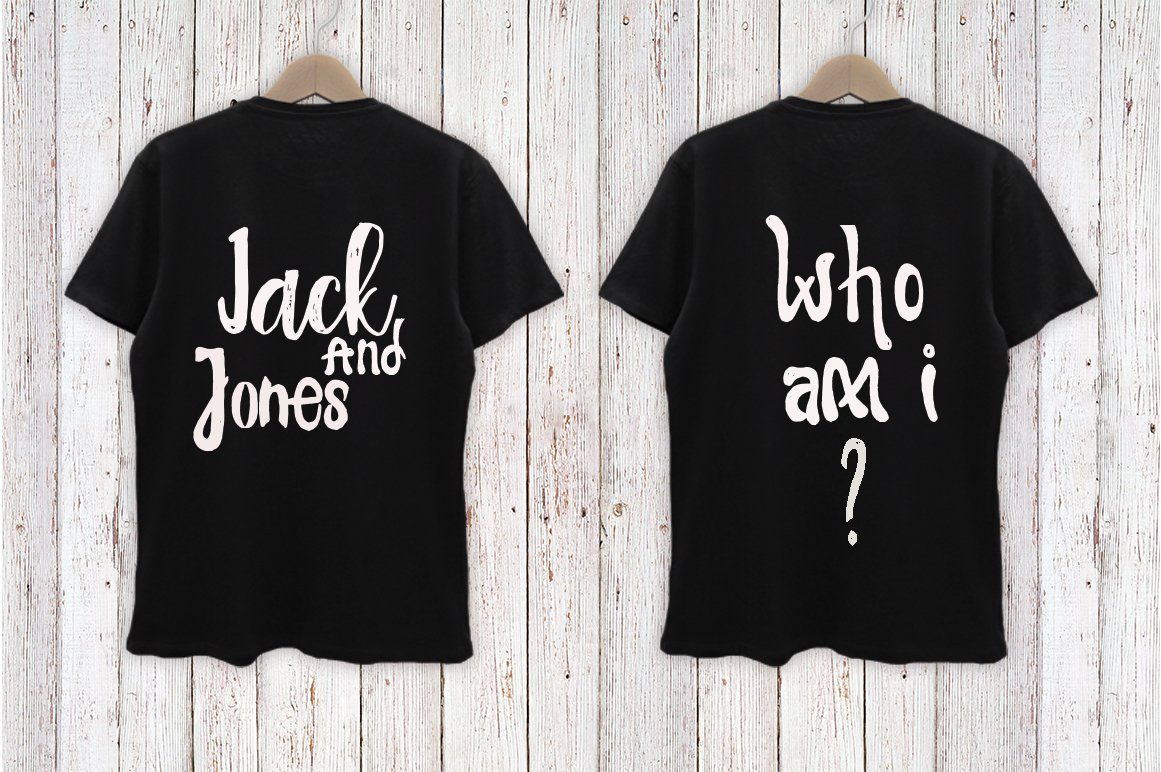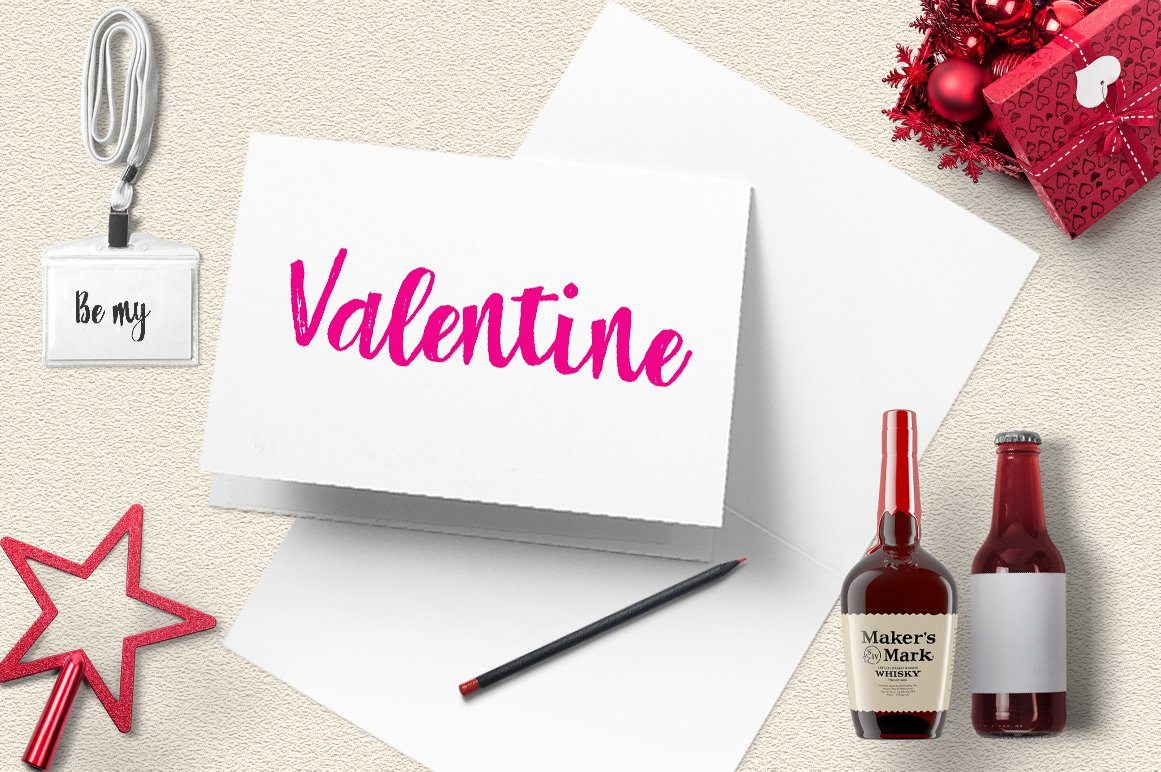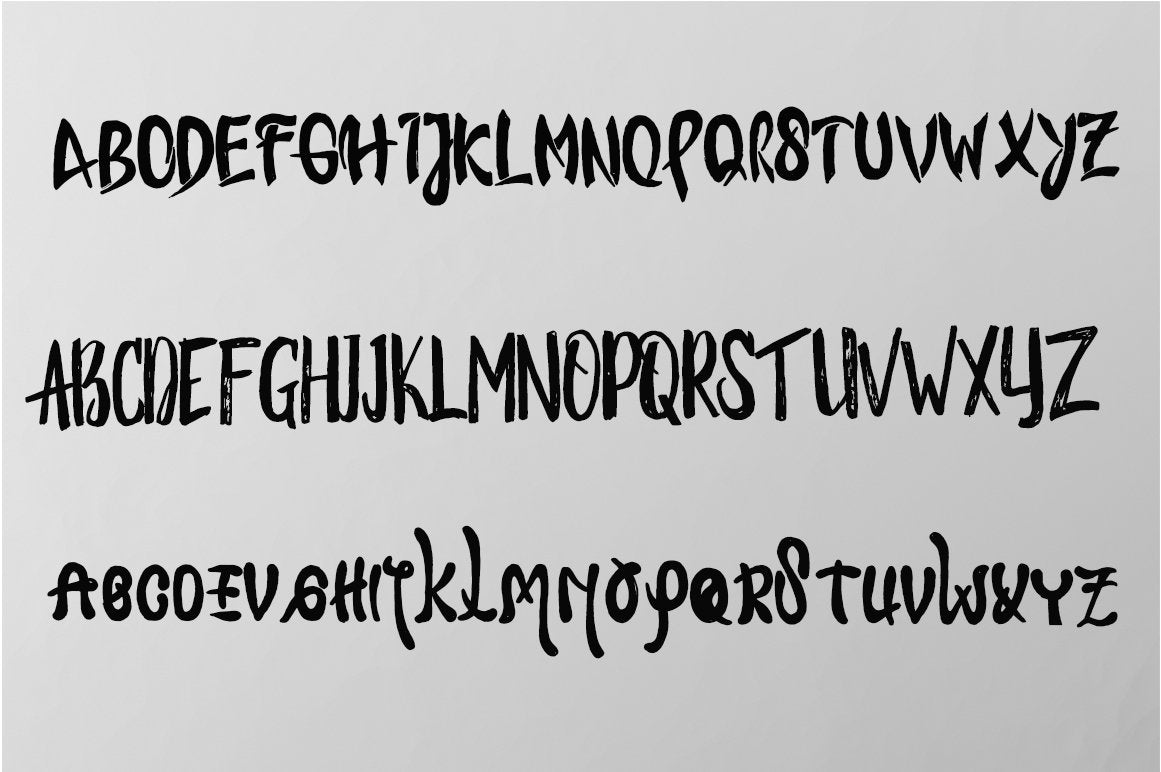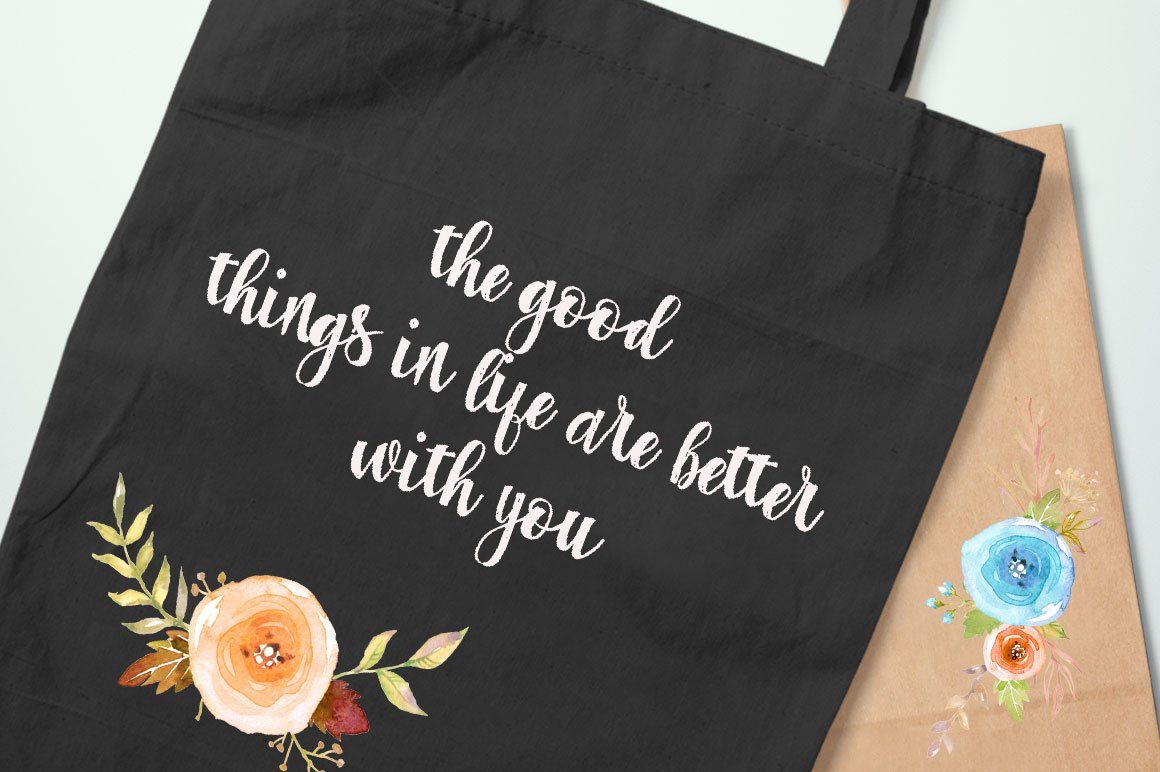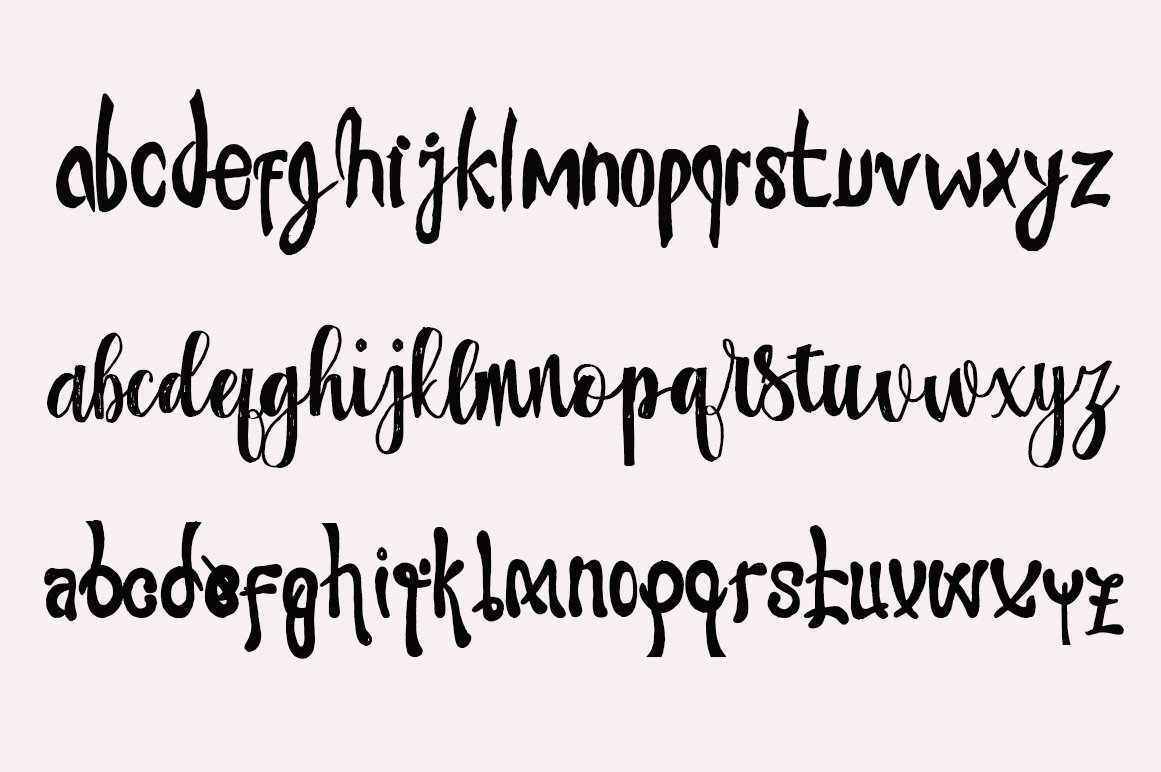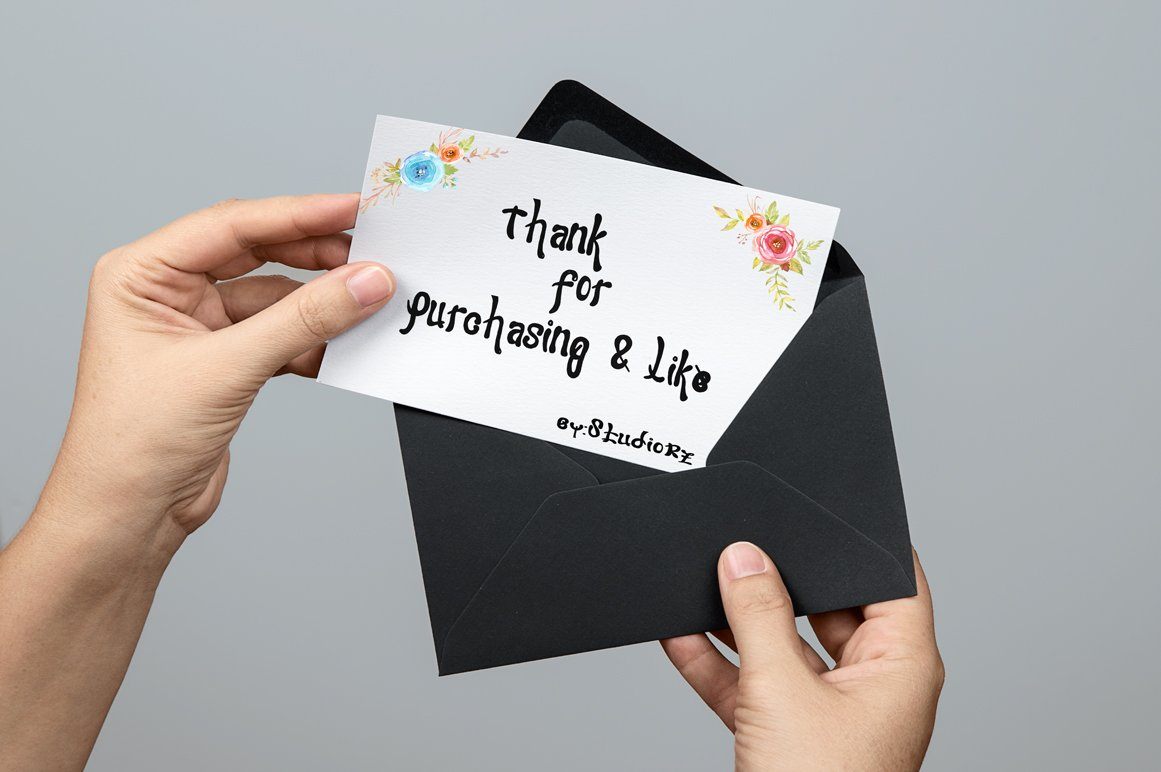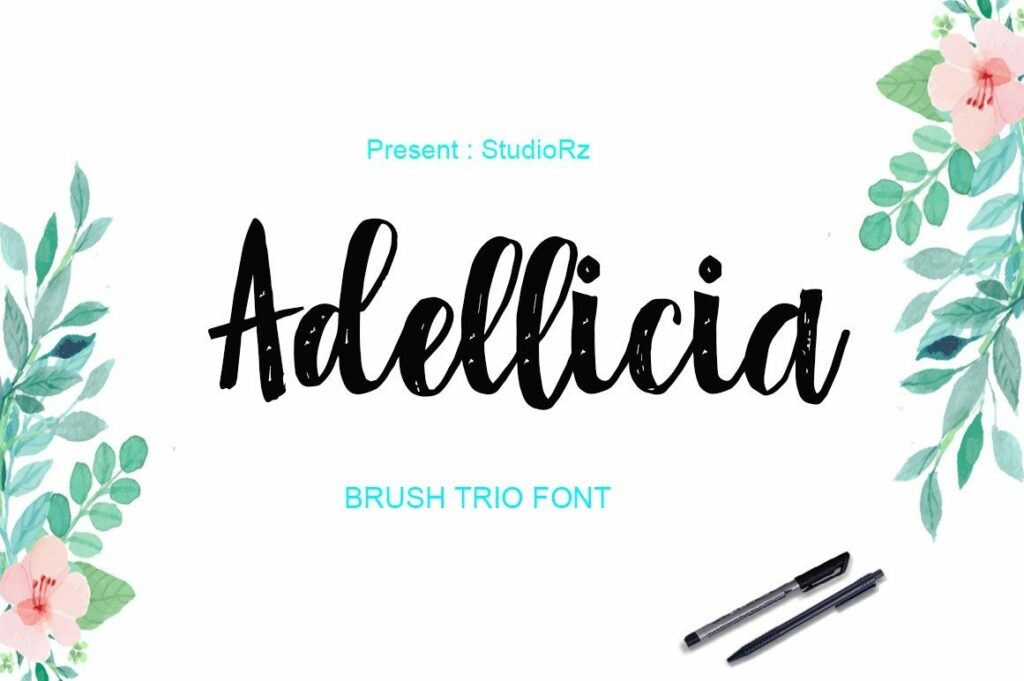
Adellicia Trio Font Script
Adellicia Trio Font Script is Handdrawn font, fantastic and unique. The Features of this fonts; Standart ligatures stylistic sets File font Trio Include ; Adellicia. OTF Adellicia. TTF Ladis. OTF Ladis. TTF Lover. OTF Lover. TTF , Modern Calligraphy. This font was designed by handwriting, and it has a modern and unique forms of calligraphy, the writing style is very natural. Can be used for various purposes. Such as title, signature, logo, wedding invitation, t-shirt, letterhead, nameplate, label, news, poster, badge etc. Adellicia Trio Font Script displays 619+ glyphs and 27 alternate characters. Includes initial letters and terminals, alternatives, ligatures and multiple language support. The Features of this fonts is; Standart ligatures Stylistic Alternates Contextual Alternates File font Denmahis Include; Adellicia Trio Font OTF Adellicia Trio Font TTF Adellicia Trio Fontfont Web Adellicia Trio Font PUA Unicode (Private Use Areas) Programs that support in this font is a Photo Shop, Adobe Illustrator, Adobe Indesign, Corel Draw and Microsoft Office. Can be used for various purposes.such as headings, logos, wedding invitation, t-shirt, letterhead, signage, lable, news, posters, badges etc. To enable the OpenType Stylistic alternates, you need a program that supports OpenType features such as Adobe Illustrator CS, Adobe Indesign & CorelDraw X6-X7. Adellicia Trio Font Script is Handdrawn font, fantastic and unique. The Features of this fonts; Standart ligatures stylistic sets File font Trio Include ; Adellicia. OTF Adellicia. TTF Ladis. OTF Ladis. TTF Lover. OTF Lover. TTF , Modern Calligraphy. This font was designed by handwriting, and it has a modern and unique forms of calligraphy, the writing style is very natural. Can be used for various purposes. Such as title, signature, logo, wedding invitation, t-shirt, letterhead, nameplate, label, news, poster, badge etc. Adellicia Trio Font Script displays 619+ glyphs and 27 alternate characters. Includes initial letters and terminals, alternatives, ligatures and multiple language support. Can be used for various purposes.such as headings, logos, wedding invitation, t-shirt, letterhead, signage, lable, news, posters, badges etc. To enable the OpenType Stylistic alternates, you need a program that supports OpenType features such as Adobe Illustrator CS, Adobe Indesign & CorelDraw X6-X7. Font Script Modern Calligraphy. This font was designed by handwriting, and it has a modern and unique forms of calligraphy, the writing style is very natural. Can be used for various purposes. Such as title, signature, logo, wedding invitation, t-shirt, letterhead, nameplate, label, news, poster, badge etc.